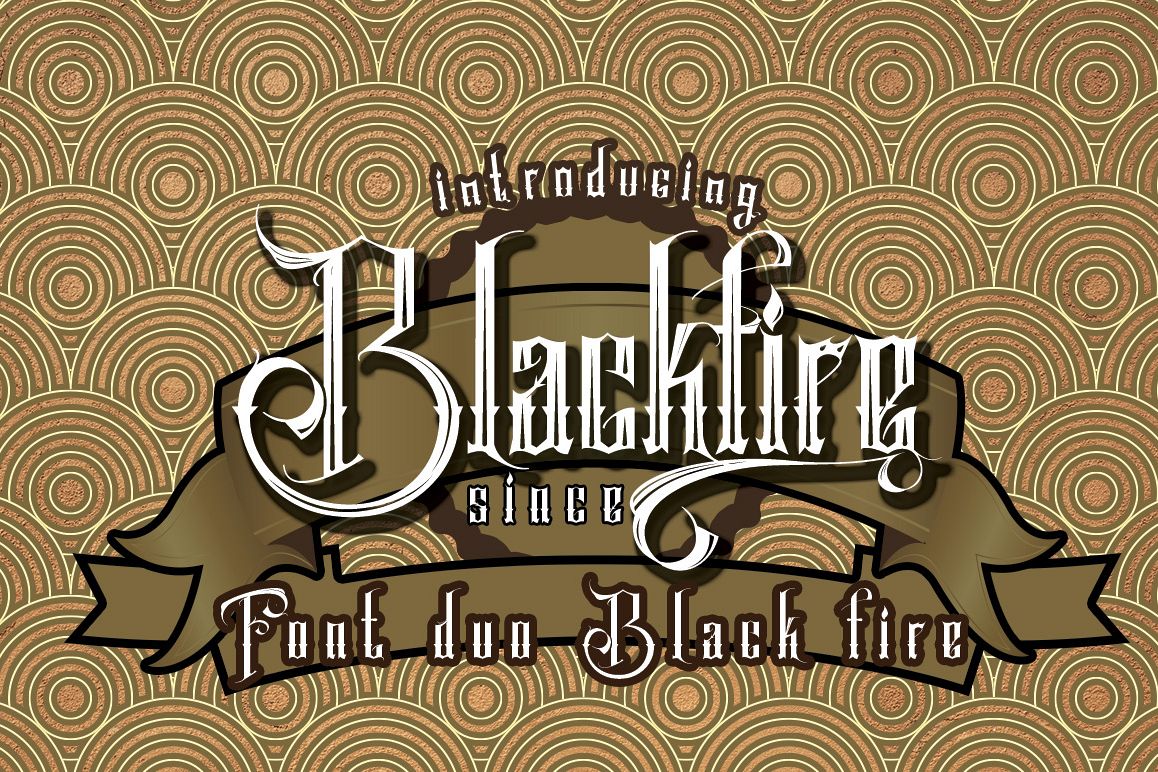
Blackfire
Blackfire This font was designed by handwriting, and it has a modern
and unique forms of calligraphy, the writing style is very natural and multiple
language support.
and alternate upparecase lowercase